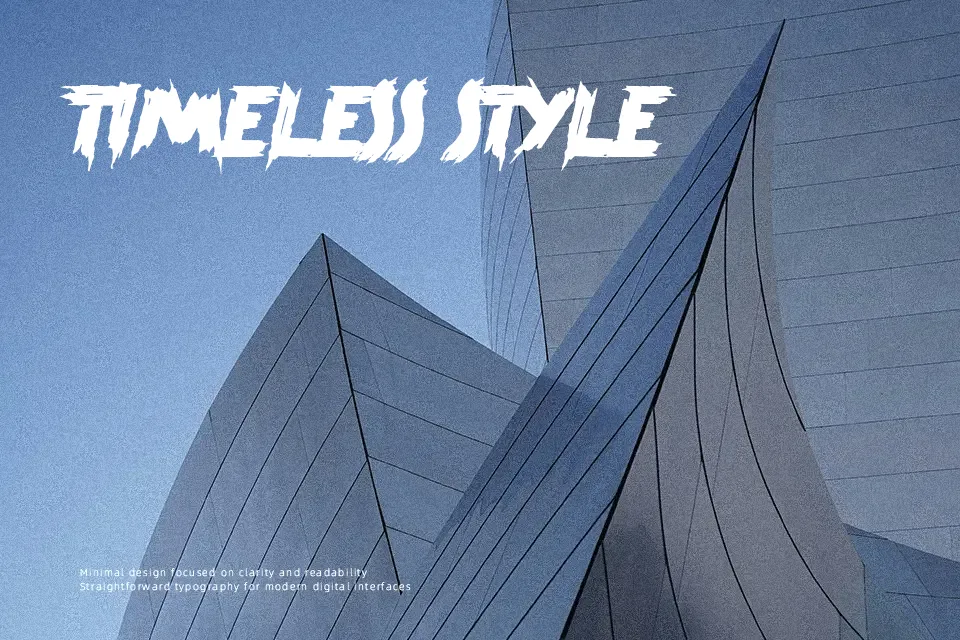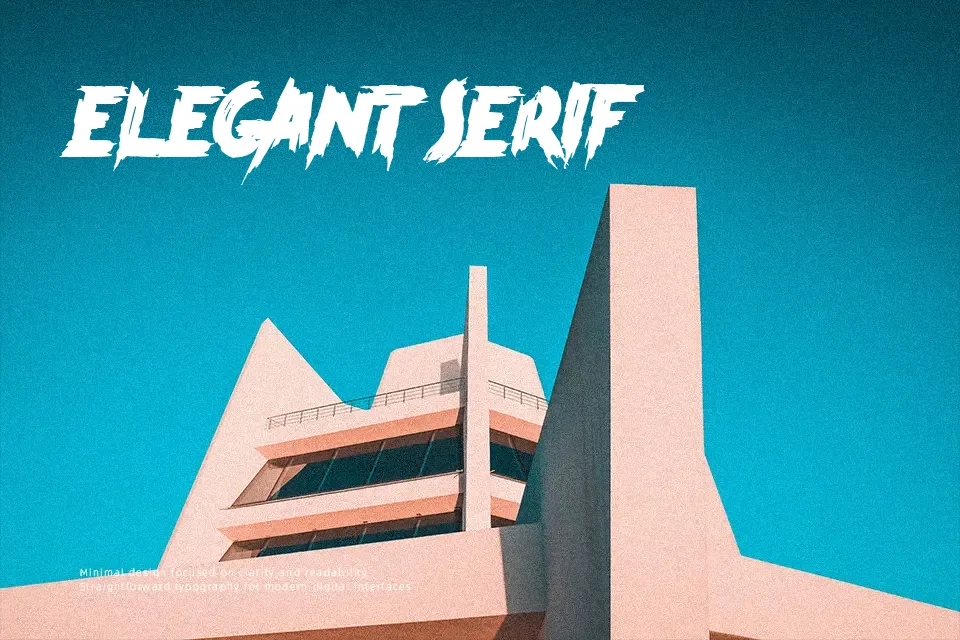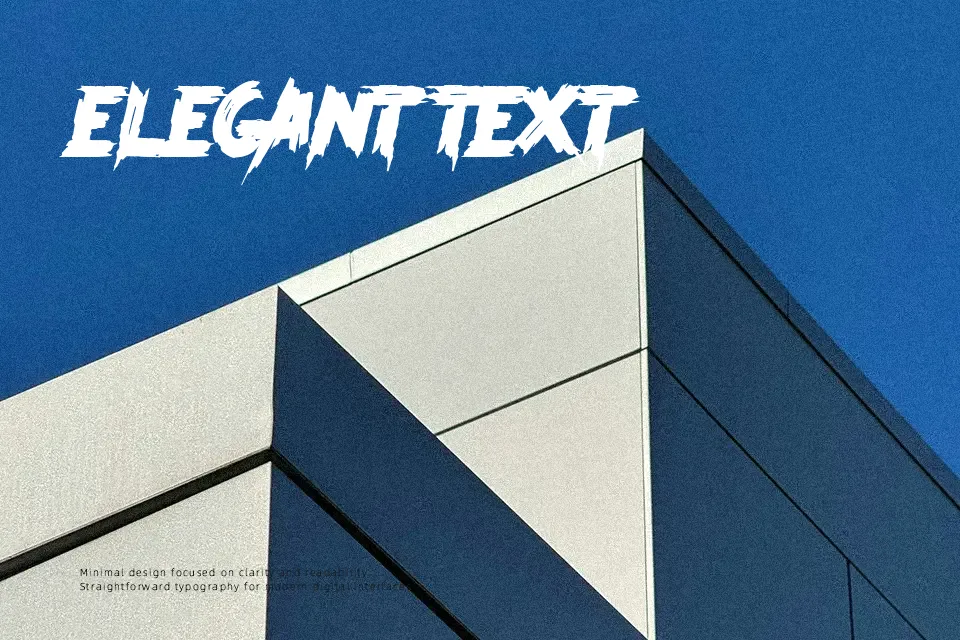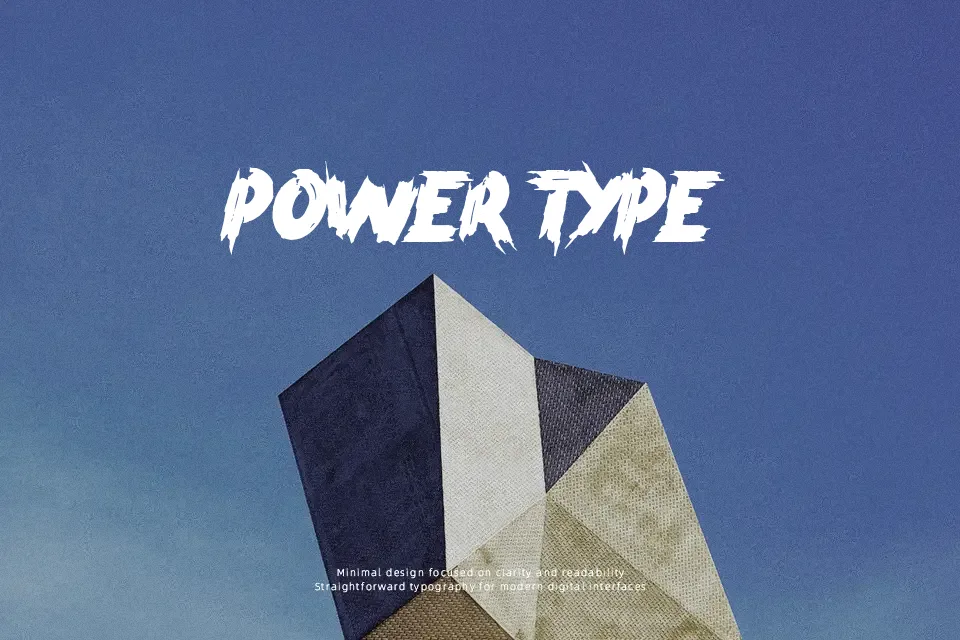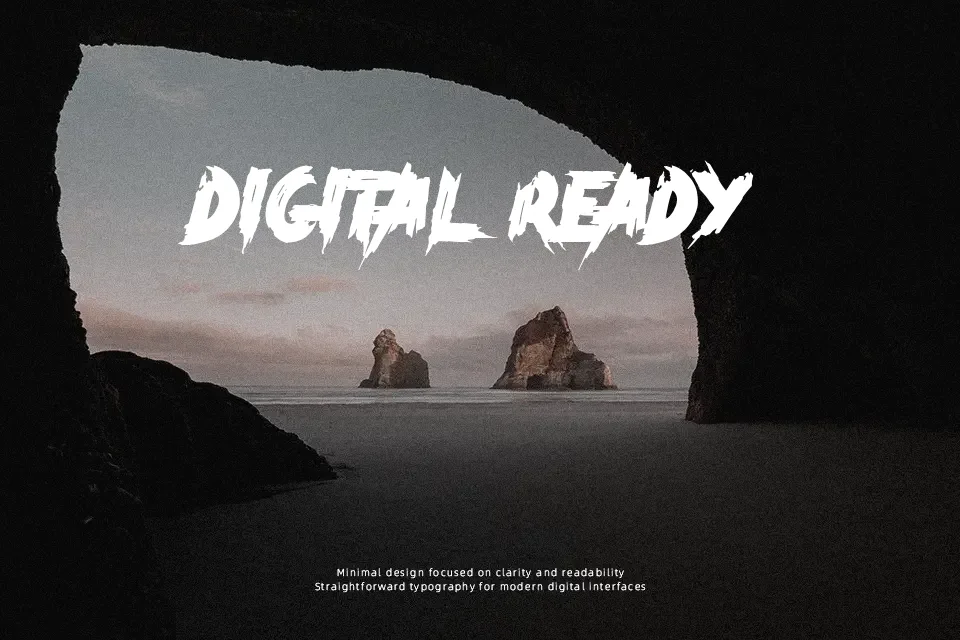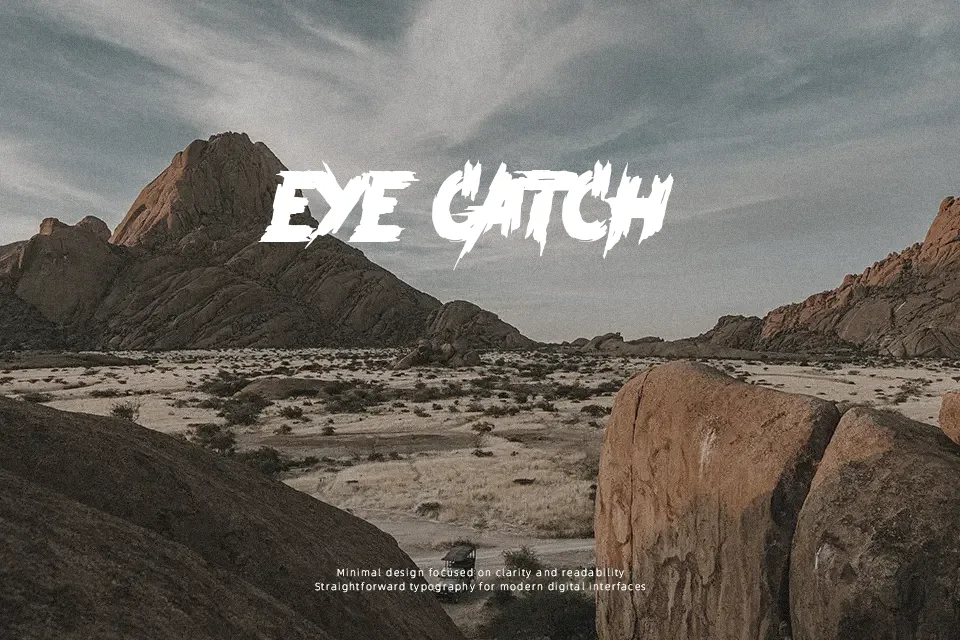
Carnage Movie Poster Font
Carnage Movie Poster Font commands attention through sharp, slashed letterforms and heavily distressed brush textures built for intense display settings. The uppercase glyphs feature erratic angles, dramatic stroke variations, and jagged contours that produce an unsettling, raw aesthetic. Tight spacing and condensed horizontal proportions reinforce its chaotic energy while keeping compact headlines punchy. The letterforms remain distinct and readable across high-contrast titles, but the textured distressing quickly loses definition in continuous text layouts. Heavy structural weight gives the typeface strong visual impact in large formats, making it unsuitable for extended reading passages or compact interface labels.
Best For: horror movie titles, Halloween event posters, thriller book covers, metal band merchandise
Not Ideal For: continuous body text, mobile user interfaces, corporate annual reports, dense tabular layouts
Perfect for film, gaming, and halloween, with a dark and brush style.